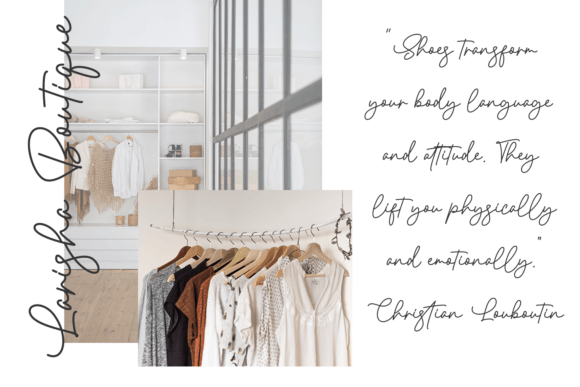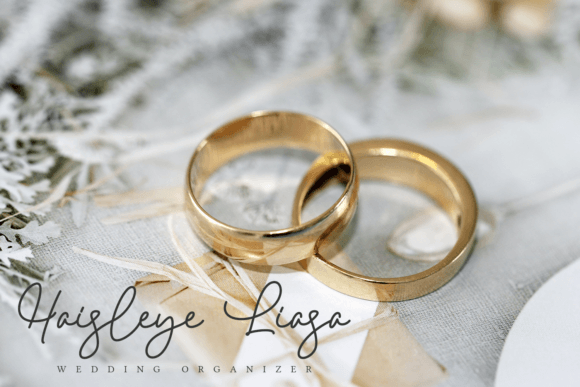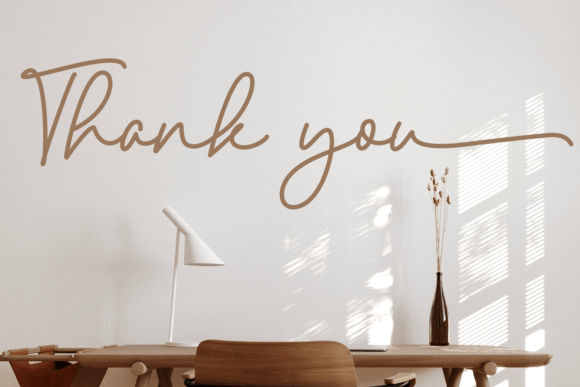
Soulmate Font
About Soulmate Font
Soulmate is a stunning monoline script font that beautifully mimics real handwriting. Its authentic appearance makes it the perfect choice for products that require a personal touch and an exquisite look. This font, PUA encoded, provides easy access to all the glyphs and swashes, allowing for seamless customization and enhancement of your creative projects.
The beauty of Soulmate lies in its ability to bring a genuine and personal note to your designs. Whether you’re working on product packaging, invitations, branding, or any other creative endeavor, Soulmate imparts an elegant and handwritten charm that captivates the audience.
The PUA encoding feature enhances the font’s usability, allowing you to effortlessly access various stylistic elements and swashes. This flexibility empowers designers to add unique and personalized touches to their projects, ensuring that Soulmate is not just a font but a creative tool that adapts to your vision.
Whether used in digital or print media, Soulmate maintains its exquisite look, making it versatile across a range of design applications. Let Soulmate be the choice that elevates your products and projects with its gorgeous monoline script, creating a lasting impression with its authentic and sophisticated style.